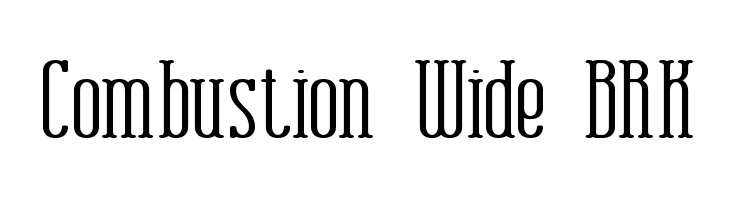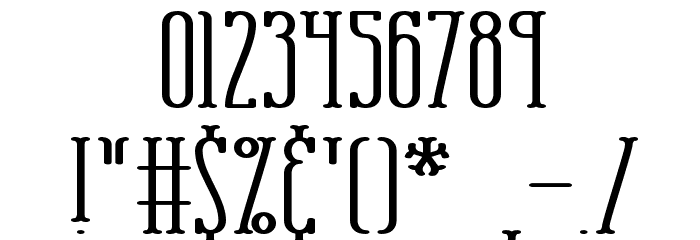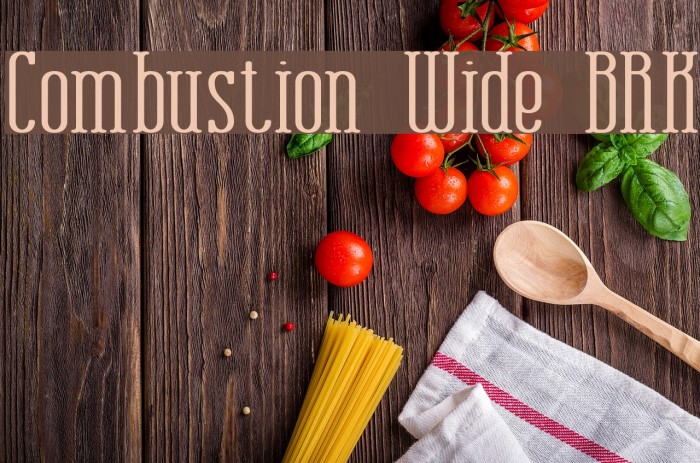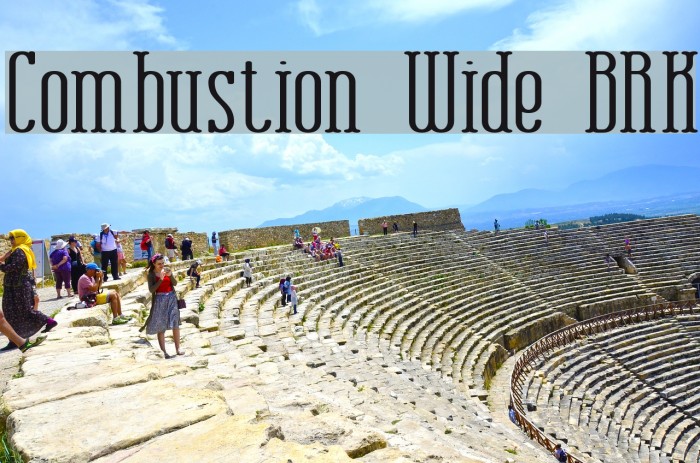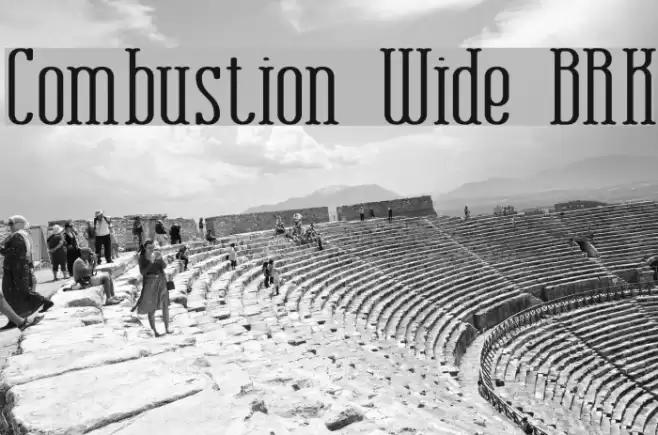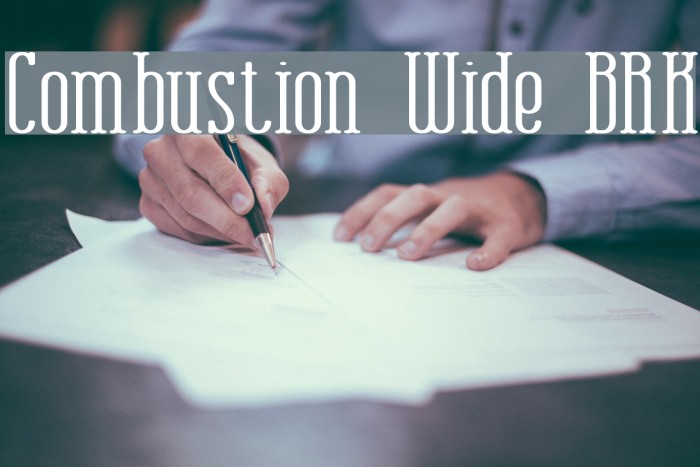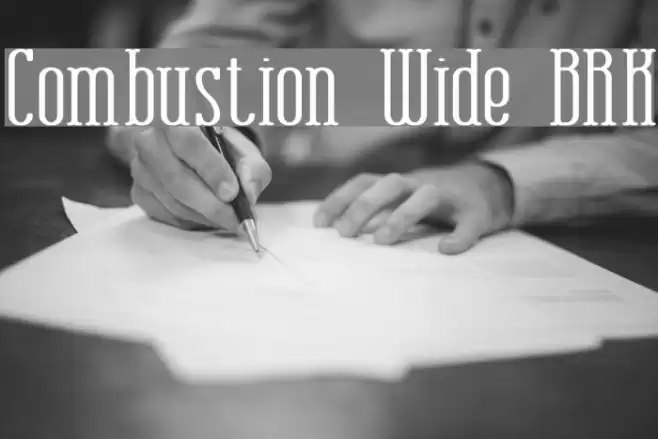
Combustion Wide BRK Font
Combustion Wide BRK Description
This font features a distinctive, elongated style with tall, narrow characters that give it a unique and striking appearance. The vertical emphasis is complemented by subtle serifs, adding a touch of elegance and sophistication. The uppercase and lowercase letters maintain a consistent height, creating a uniform look across text. Numbers and special characters are designed with the same elongated proportions, ensuring a cohesive visual experience. The overall design is modern yet retains a classic charm, making it versatile for various applications.
| Proposed Projects | Ideal for branding, posters, and headlines where a distinctive and elegant look is desired. |